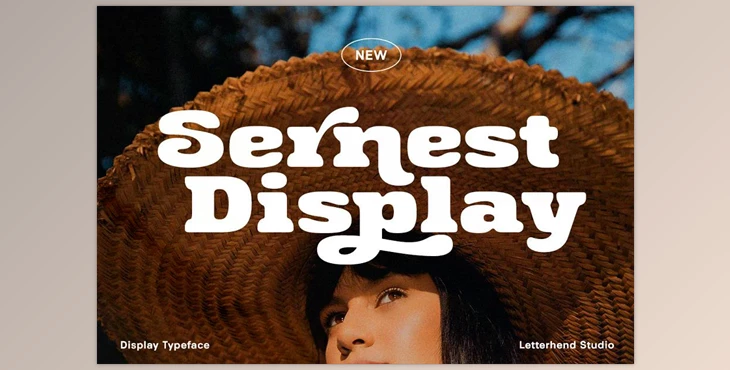
Sernest Display Font Creativemarket 6990666: Sernest Display is a strong and bold sans serif, with the look of vintage and feel. This type of font is designed to be used in headlines, logos signs, signage, and other different formal formats like invitations labels as well as publications, logos greeting cards, wedding or wedding invitations packaging, fashion, makeup, stationery books, labels, or any other advertising use.
Some great features of Sernest Display Font:
- uppercase and lowercase
- Numbers and punctuation
- multilingual
- Alternate swashes, ligatures, and alternates